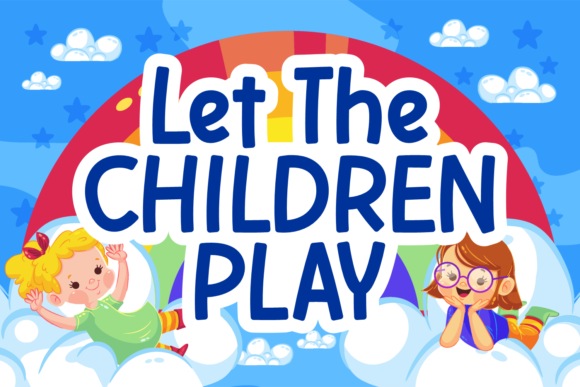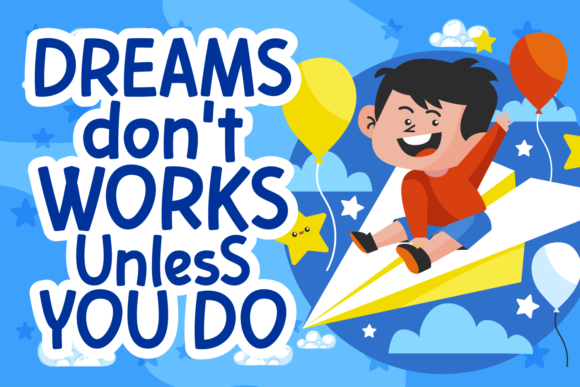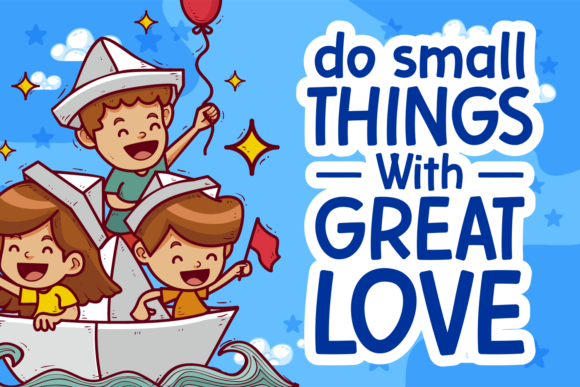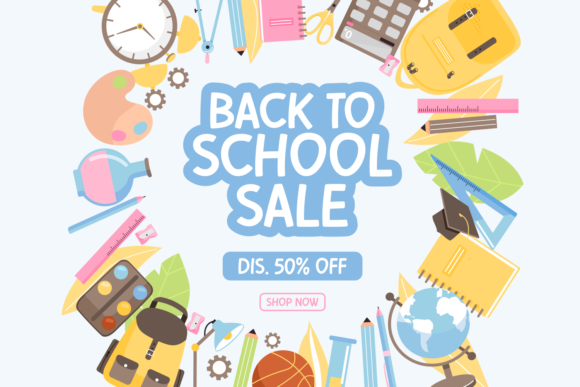
Let the Children Play Font
About Let the Children Play Font
Let The Children Play is a simple and casual handwritten font that perfectly captures the playful and carefree spirit of children. This font is an excellent choice for any design project with a children’s theme, adding a delightful and fun touch to the overall aesthetic.
The simplicity of Let The Children Play makes it highly legible and easy to read, which is important when designing for younger audiences. Its casual handwriting style adds a sense of authenticity and approachability to your designs, creating a warm and friendly atmosphere.
When combined with bright and vibrant colors, Let The Children Play truly comes to life. The font’s simplicity allows the colors to shine and adds to the overall visual appeal of the design. Whether you’re creating children’s book covers, posters, invitations, or any other design aimed at kids, this font will help you capture their attention and create a joyful and engaging experience.
Let The Children Play is not only suitable for digital designs but also works well in print materials such as coloring books, activity sheets, and educational materials. Its casual and playful nature aligns perfectly with the spirit of childhood, fostering creativity and imagination.
By using Let The Children Play, you can infuse your designs with a sense of playfulness and create a memorable experience for children. Whether it’s for a school project, a children’s event, or any design that celebrates the joy of childhood, this font will add the perfect touch to your creations.